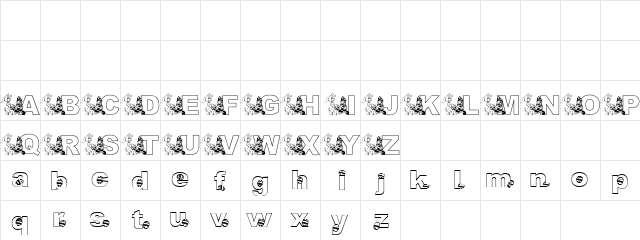
Fun Toons Regular
Design Context for Fun Toons Typeface
Fun Toons trades formality for fun, with bouncy, characterful letterforms that bring warmth and energy to any project.
Font Pairing: Pairs well with a rounded or humanist sans for body copy, maintaining the friendly tone without relying on Fun Toons to carry extended reading.
Pro Tip: Avoid using Fun Toons for long passages of text — it works best for headlines, labels, and short calls to action.